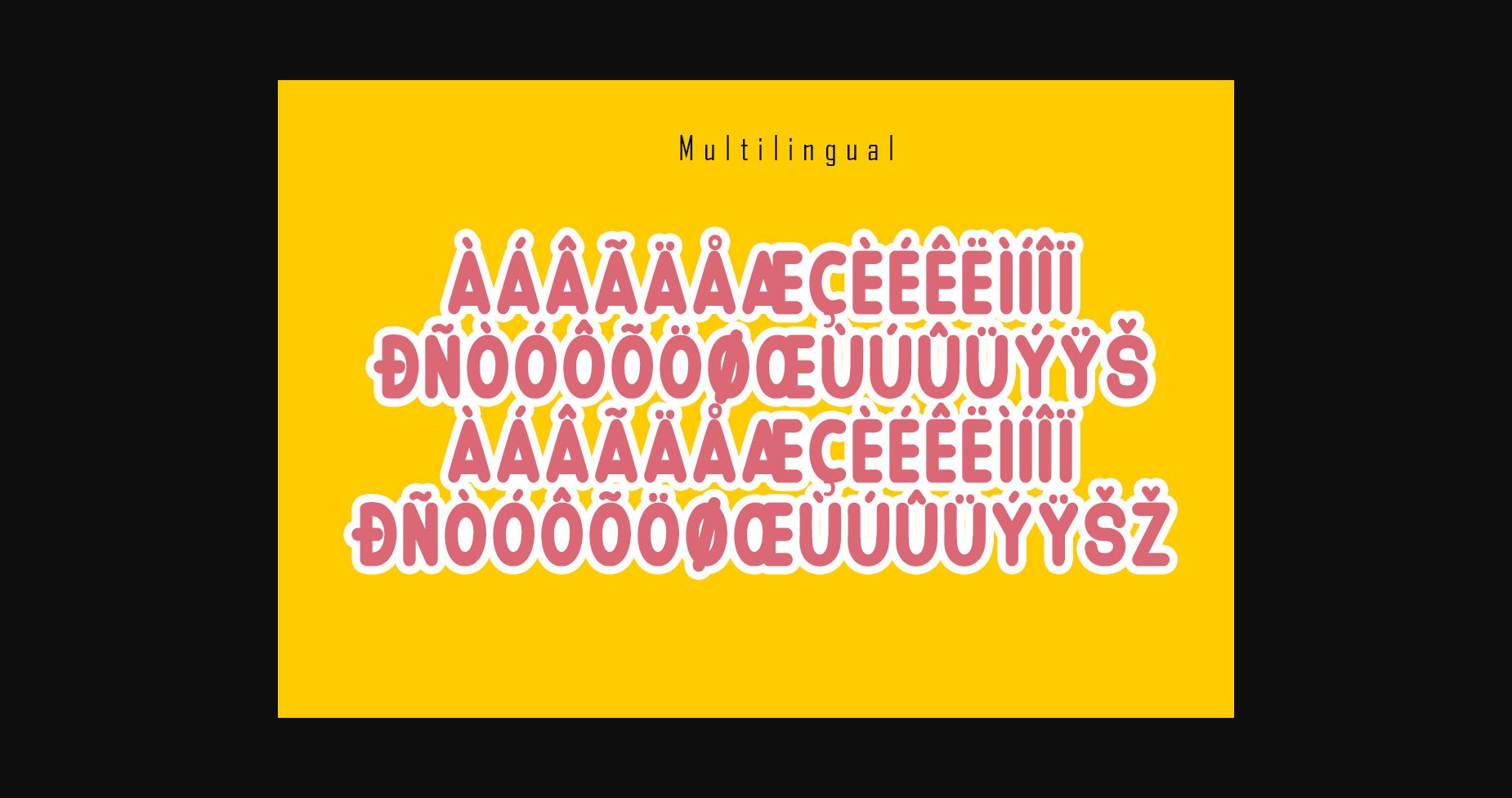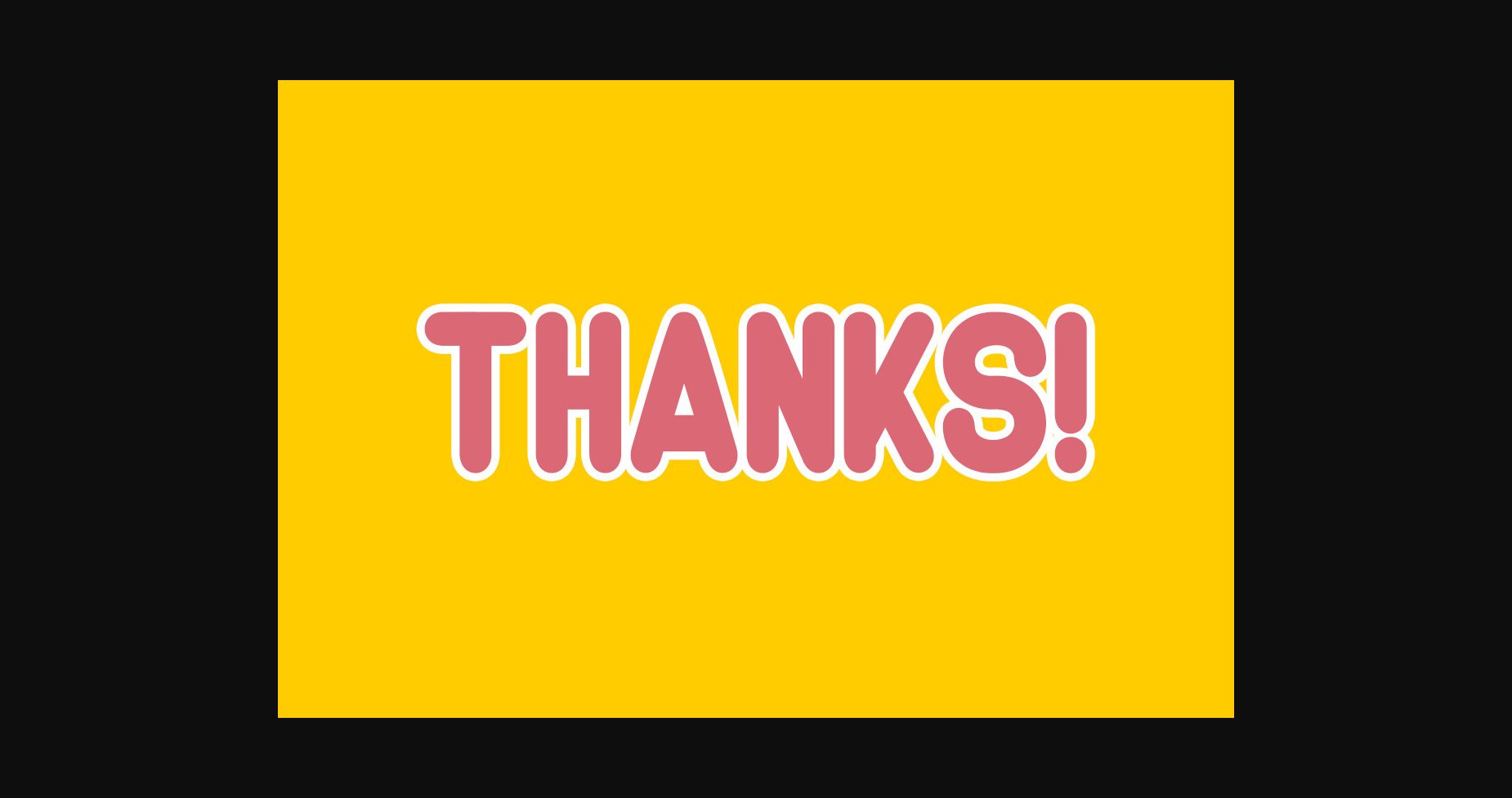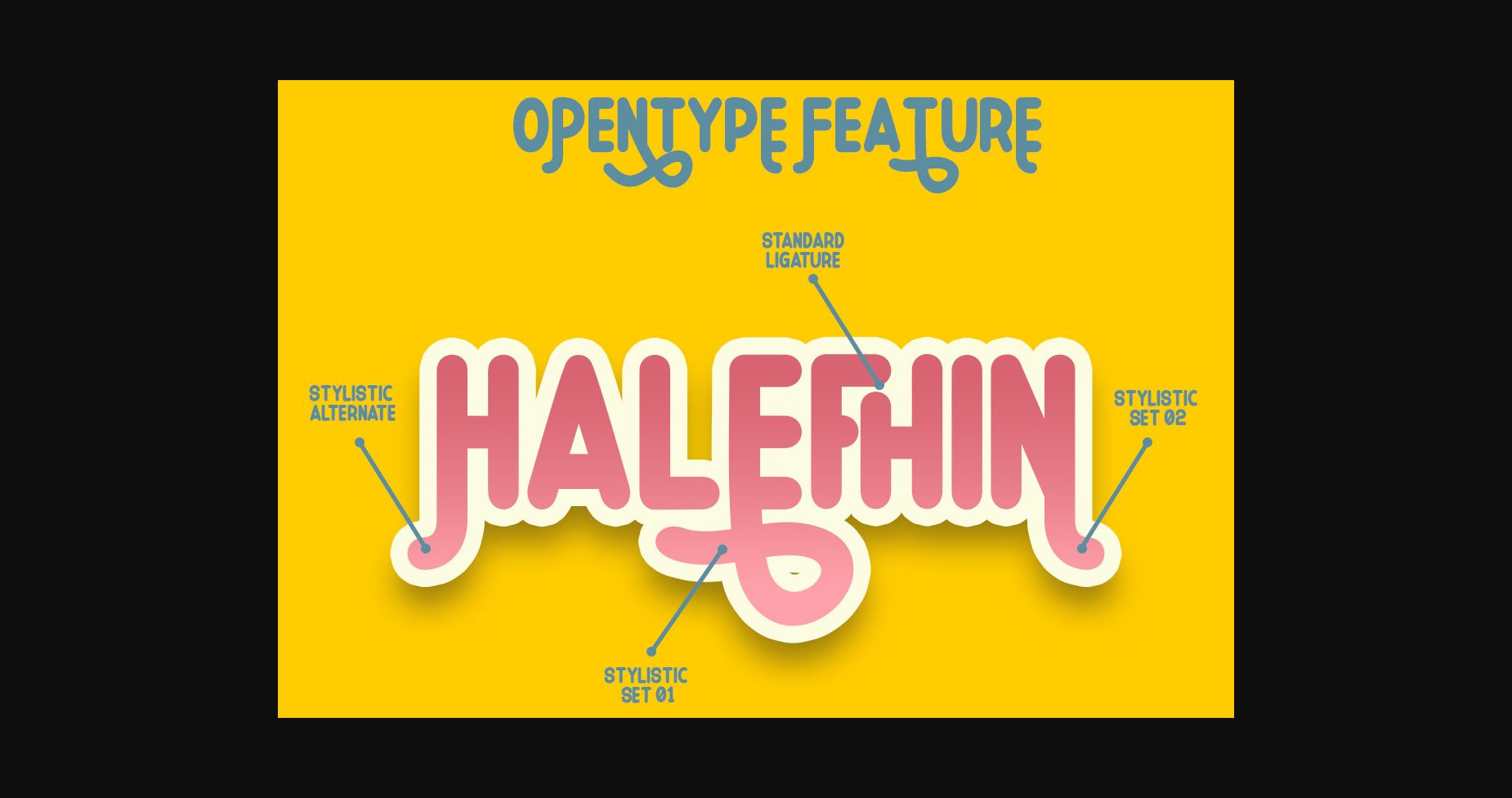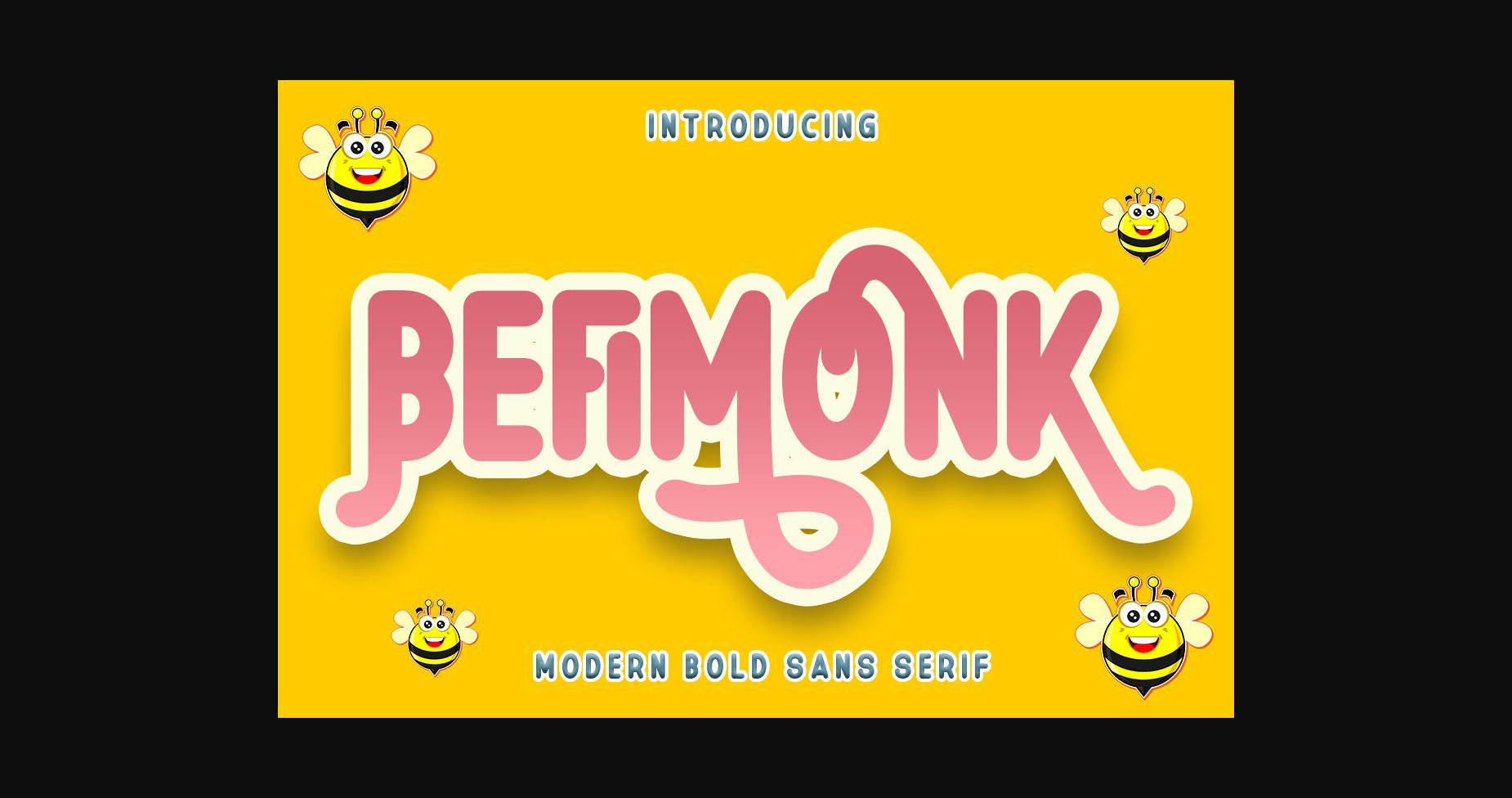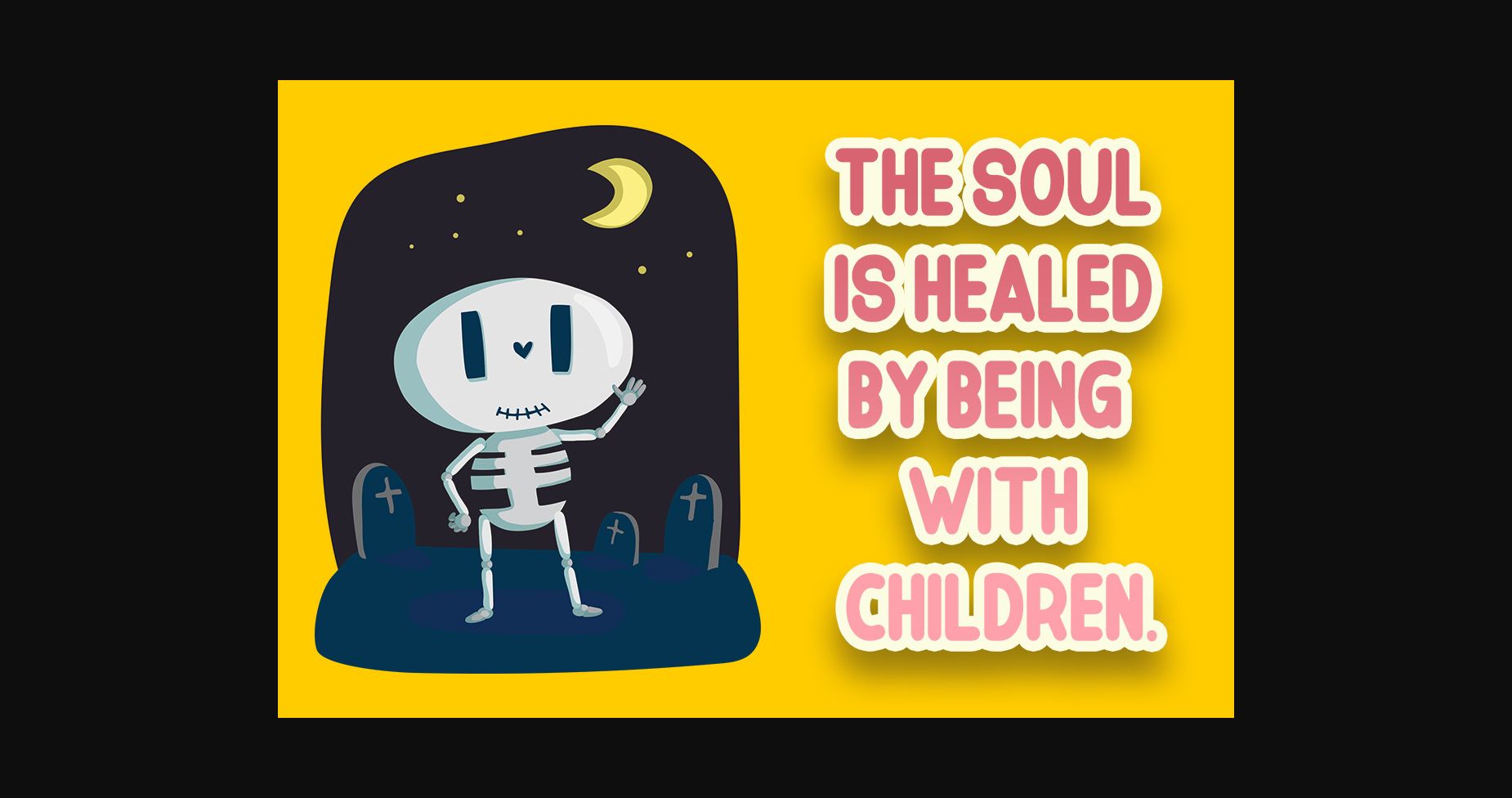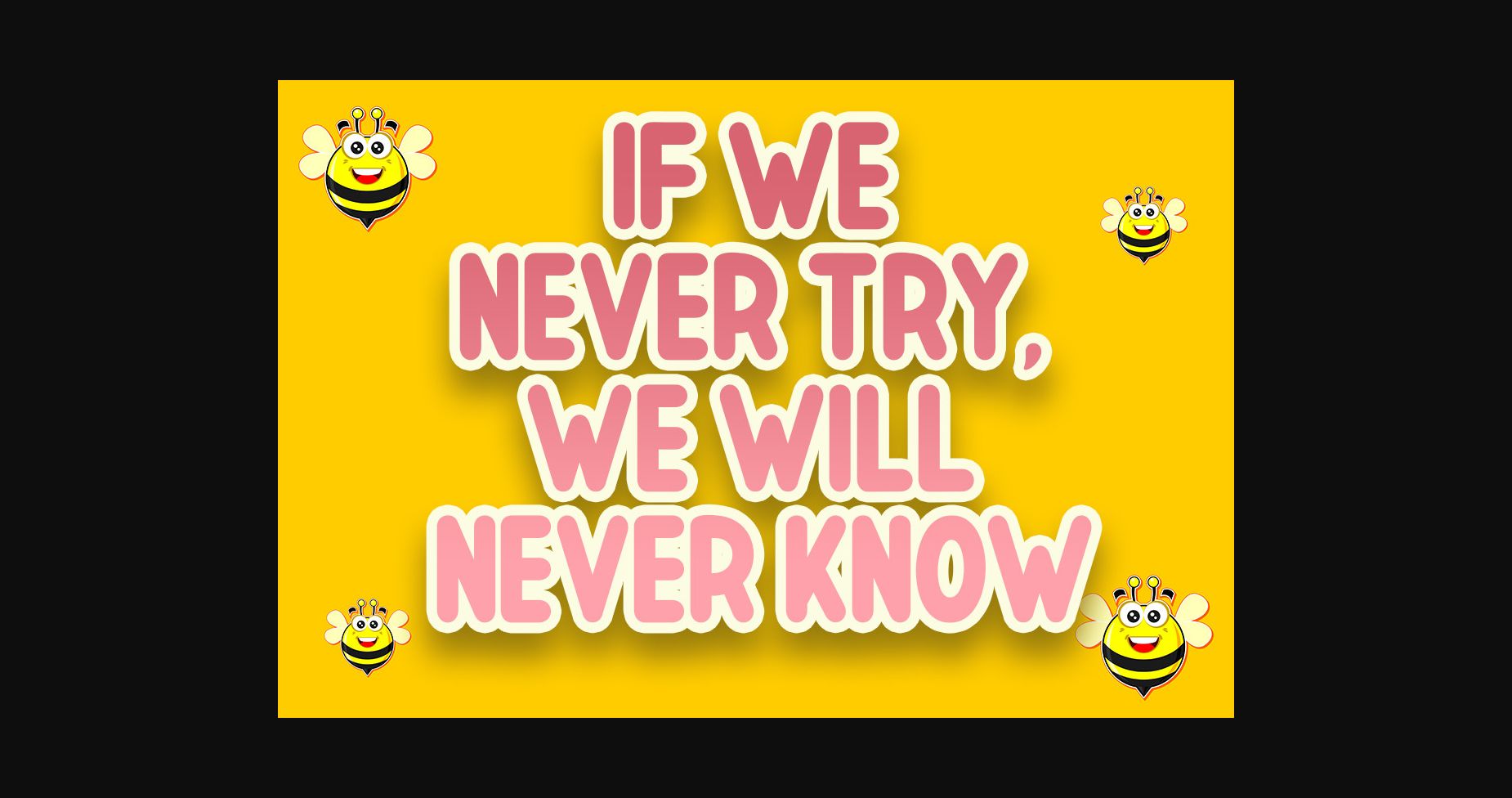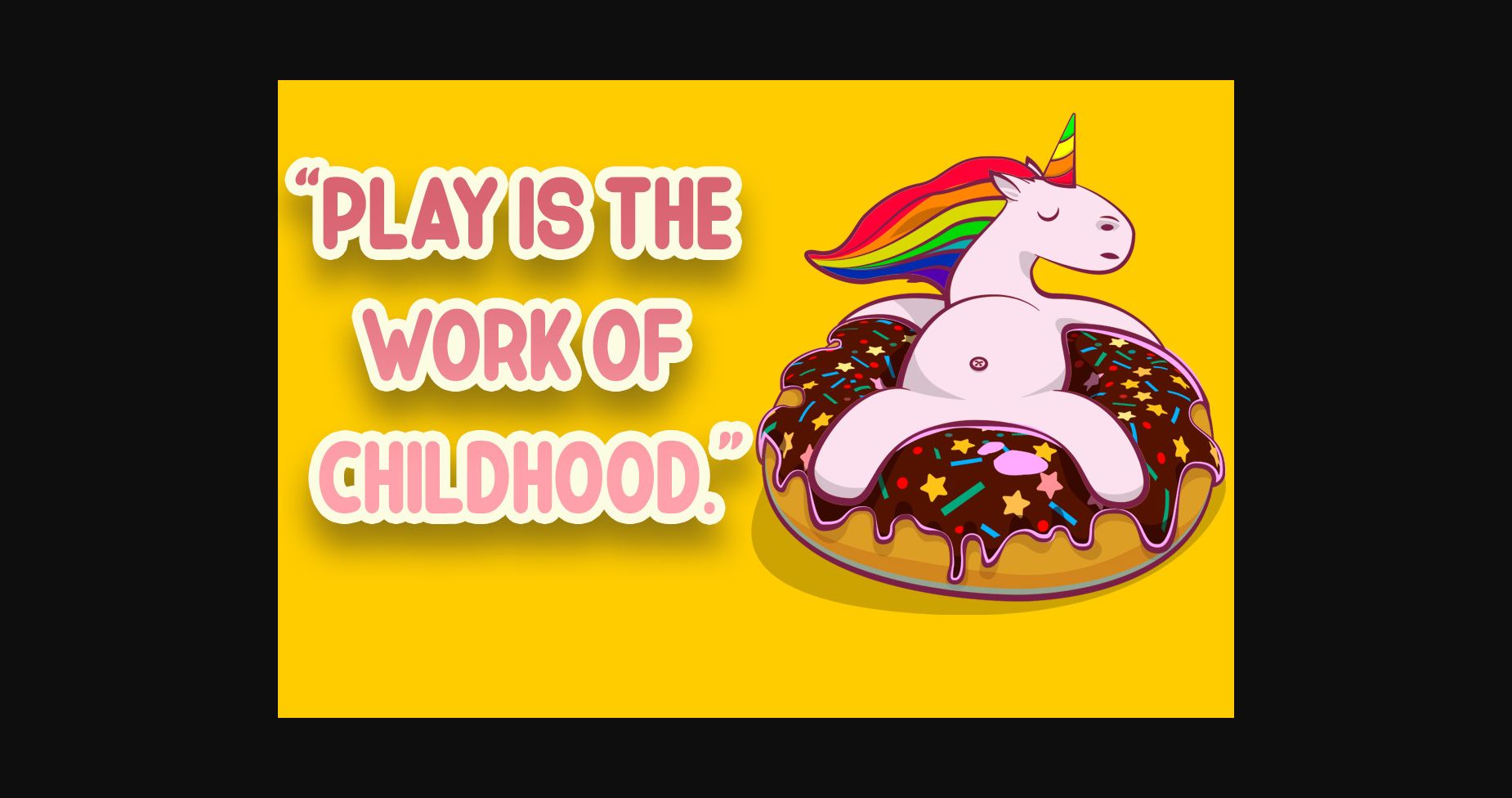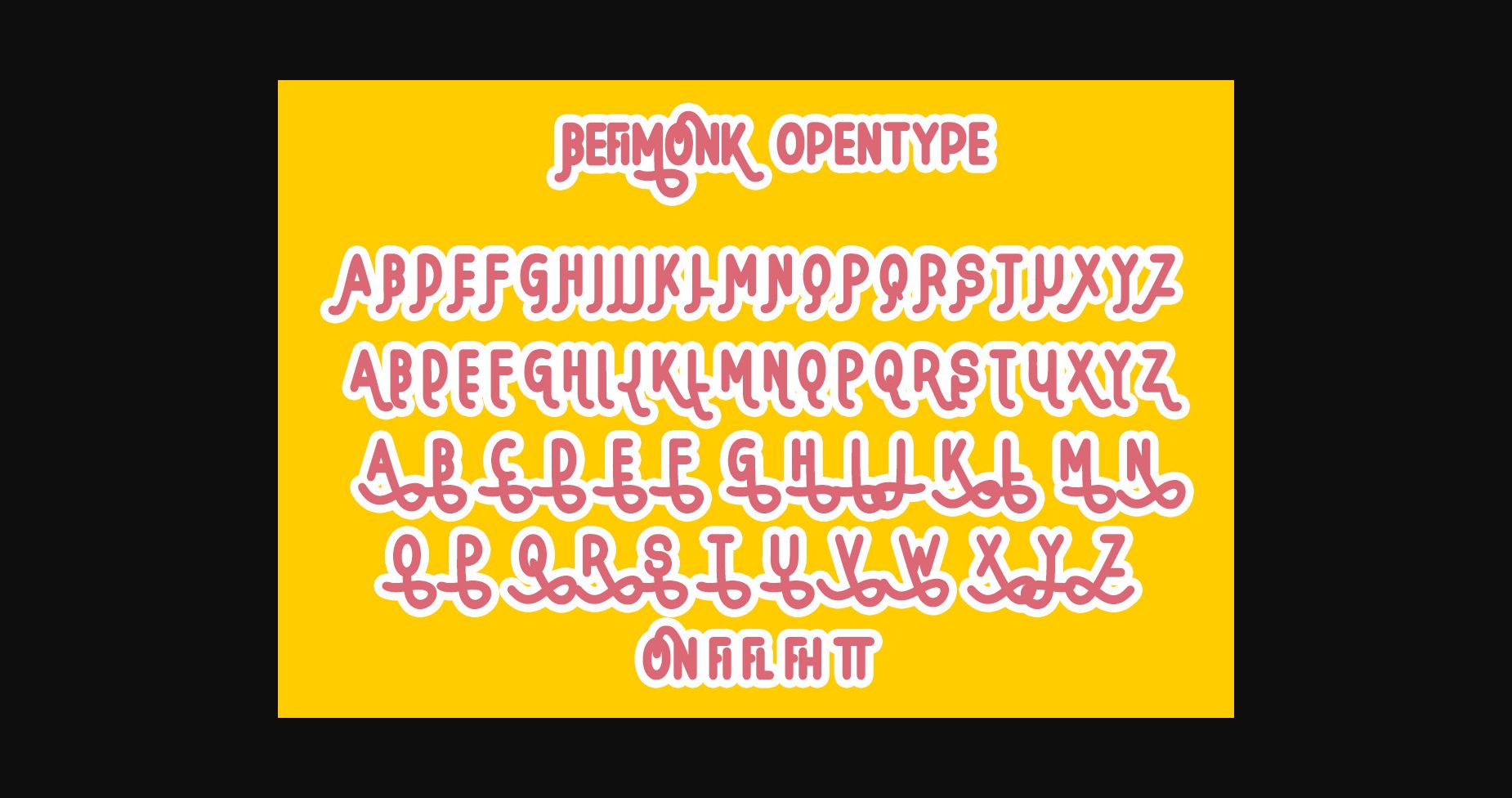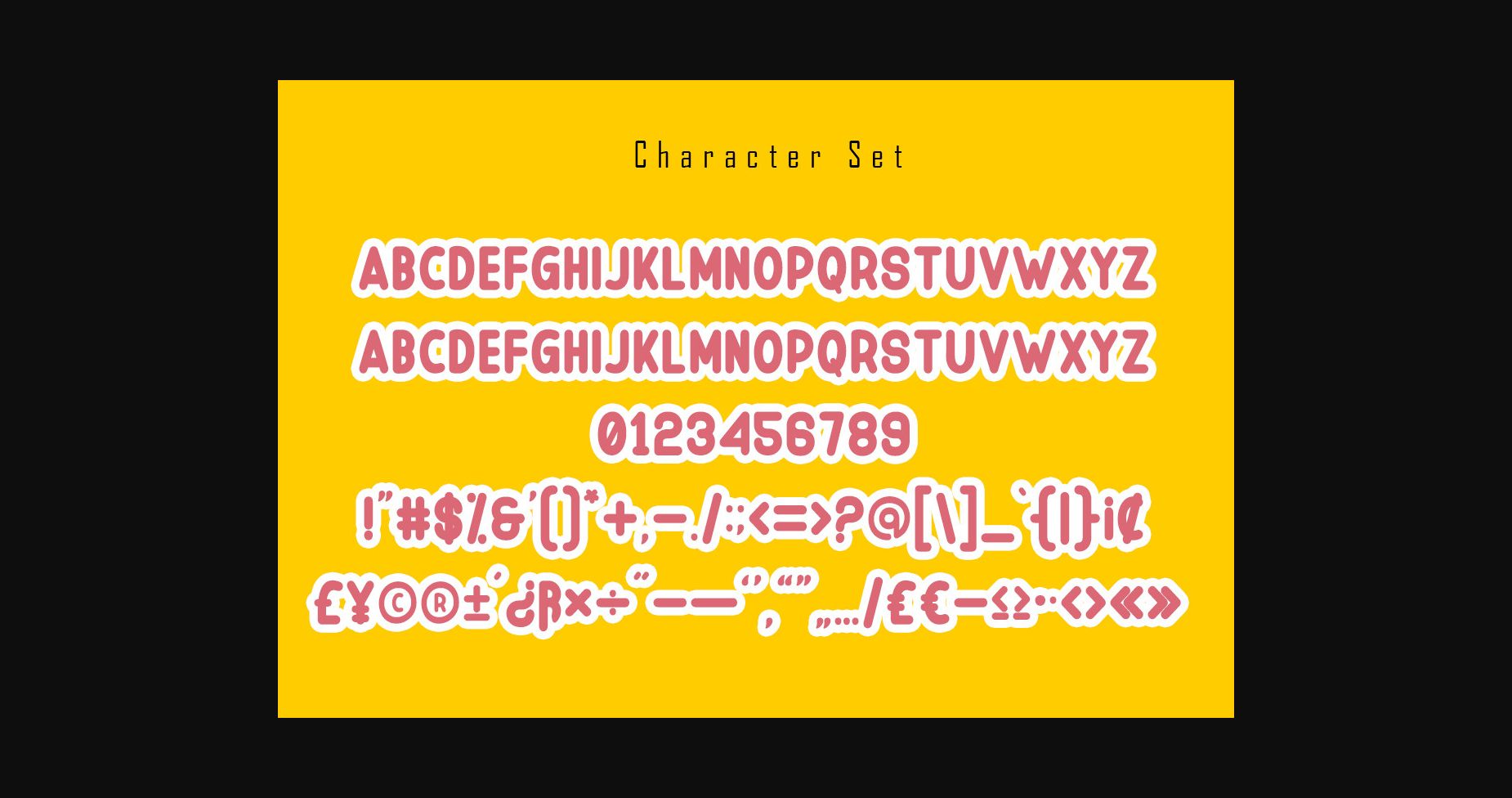
Befimonk Font
About Befimonk Font
Befimonk is a modern and cool sans serif font. No matter the topic, this font will be an incredibly asset to your fonts’ library, as it has the potential to elevate any creation. Befimonk is PUA encoded which means you can access all of the glyphs and swashes with ease!